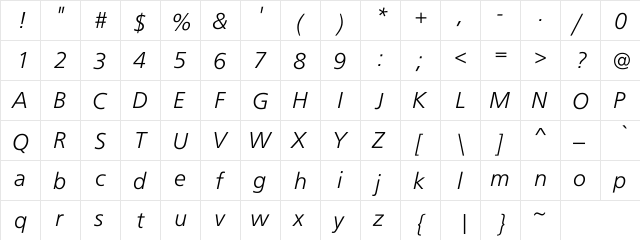
Cadet Sans Light Italic Regular
Design Context for Cadet Sans Light Italic Typeface
Cadet Sans Light Italic takes a measured approach to typography — its balanced proportions and neutral character make it a reliable workhorse for both digital and print work. The slanted form adds forward momentum and visual energy. The delicate stroke weight brings airiness and refinement to layouts.
Pro Tip: Use Cadet Sans Light Italic for emphasis, pull quotes, and subheadings where its slanted energy can add rhythm to the layout.